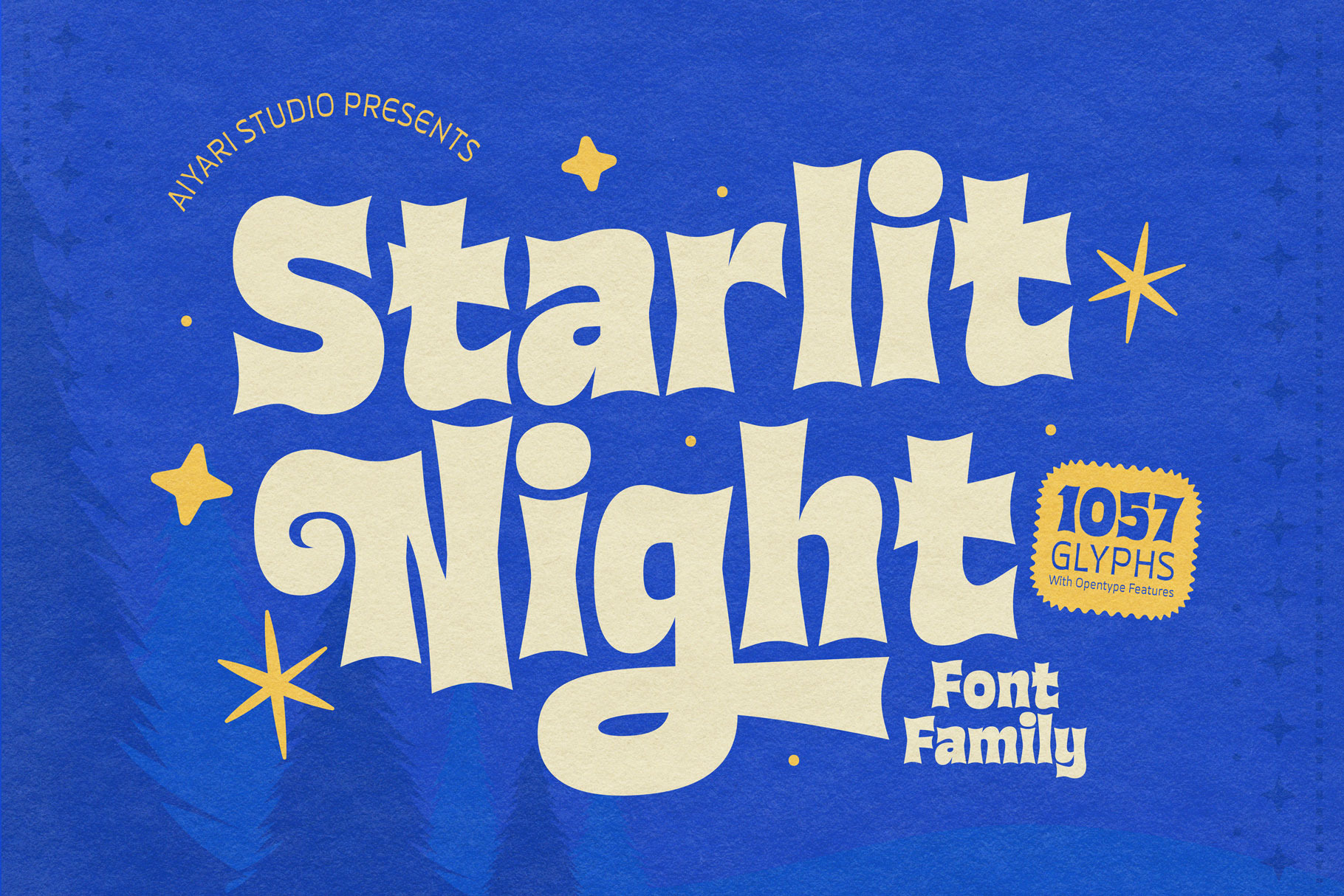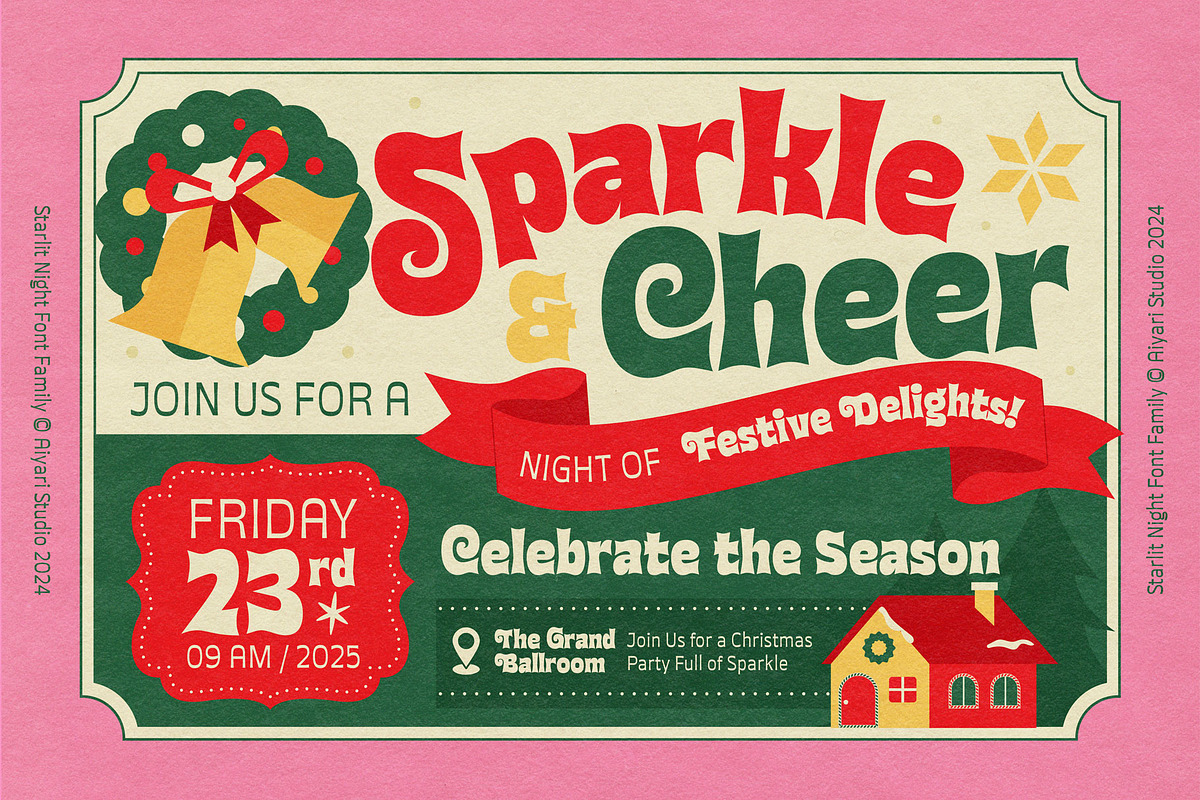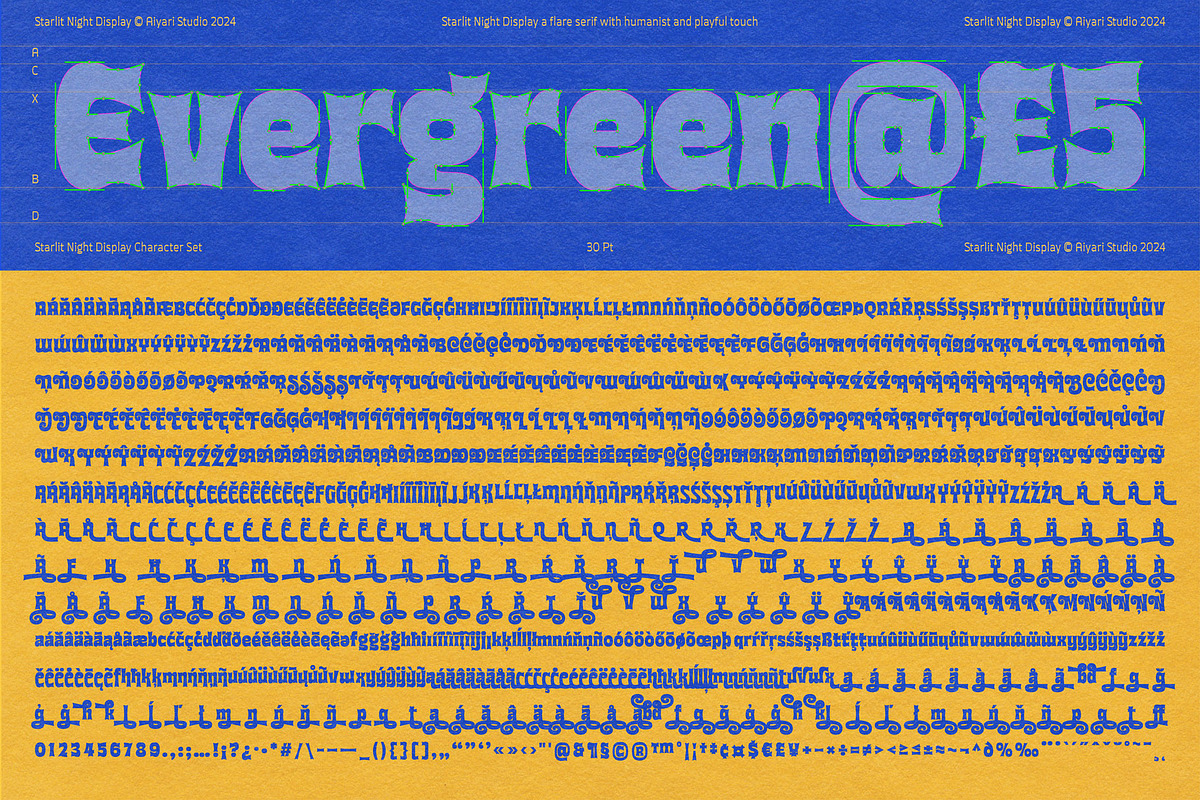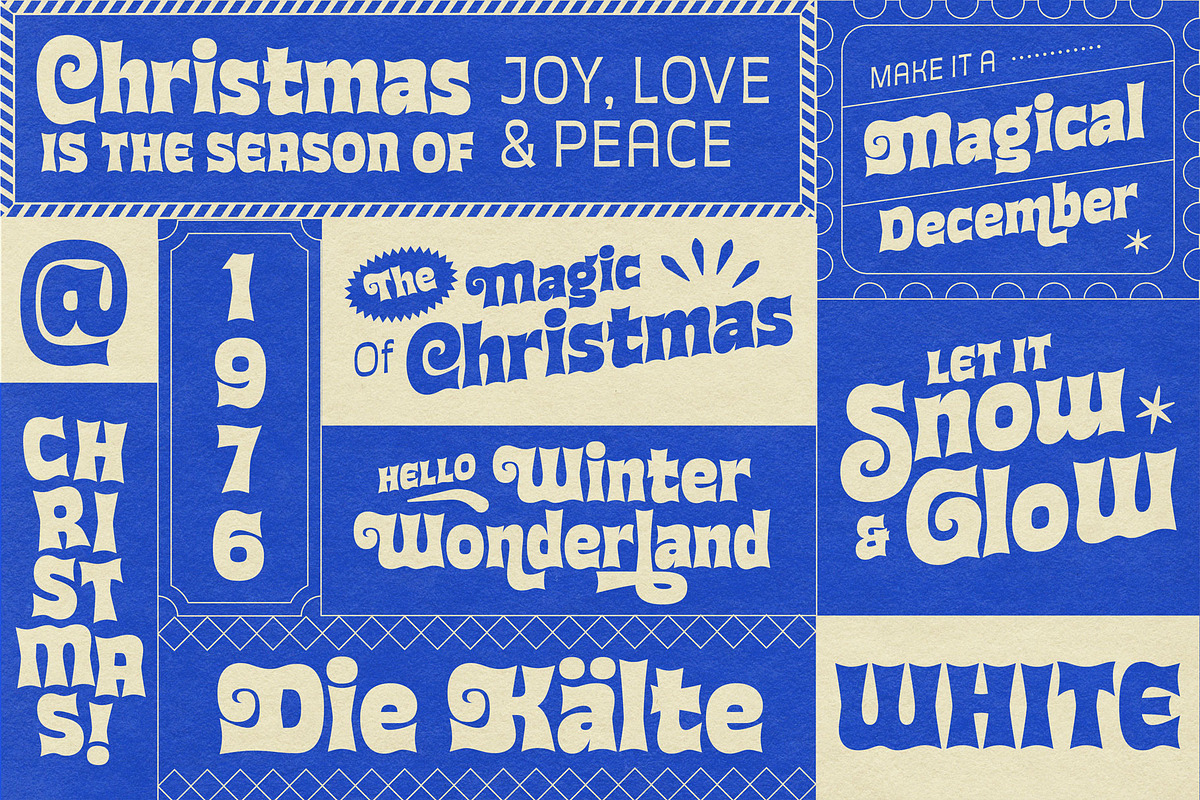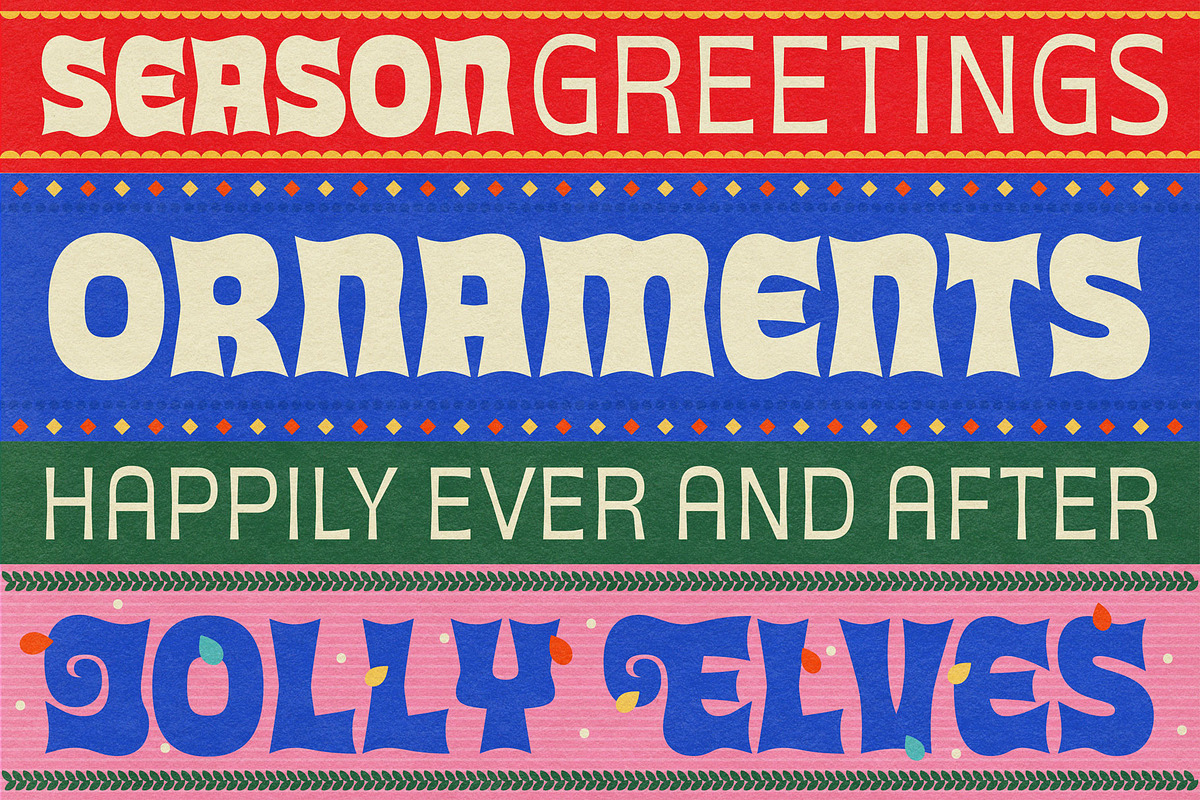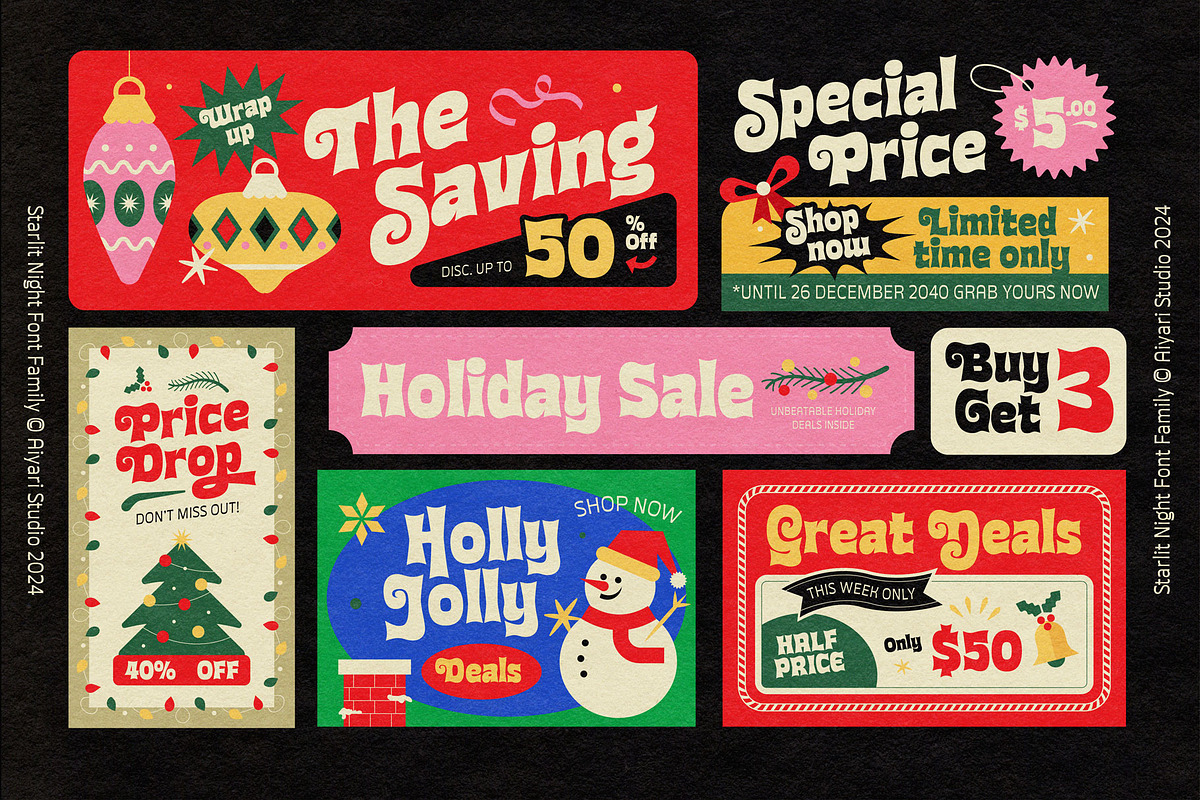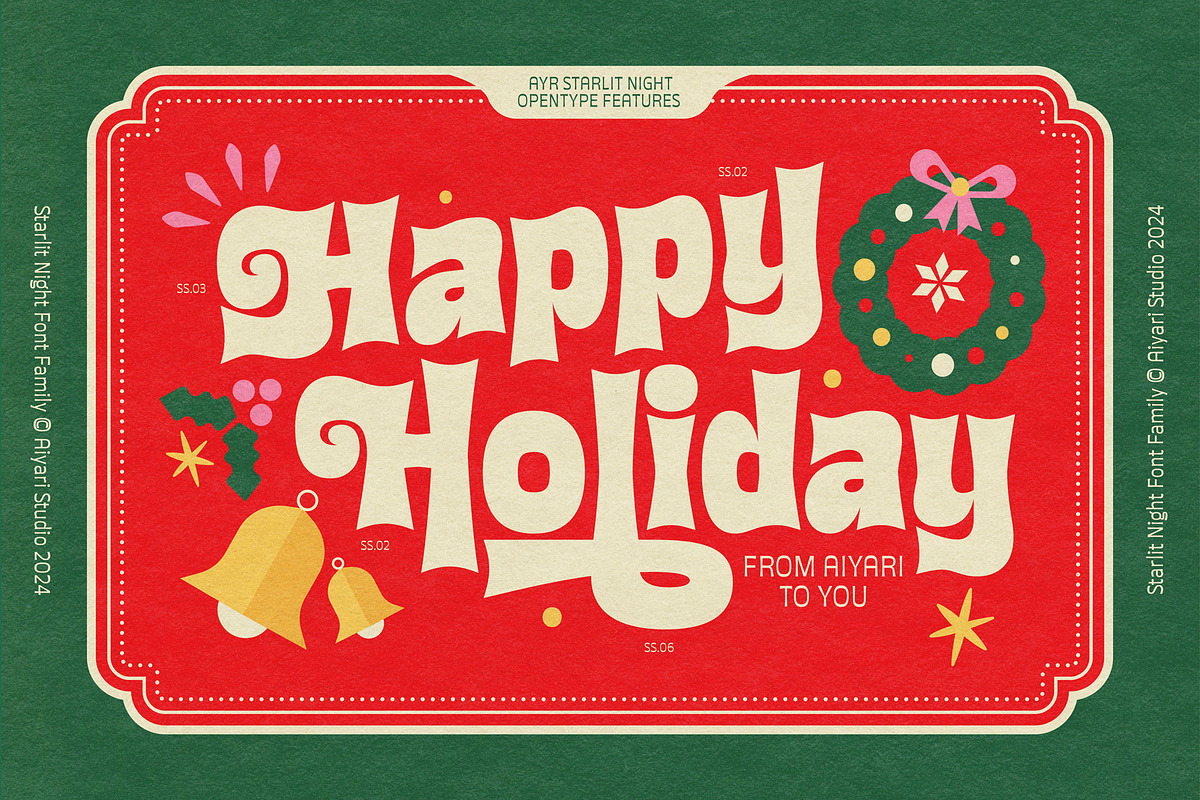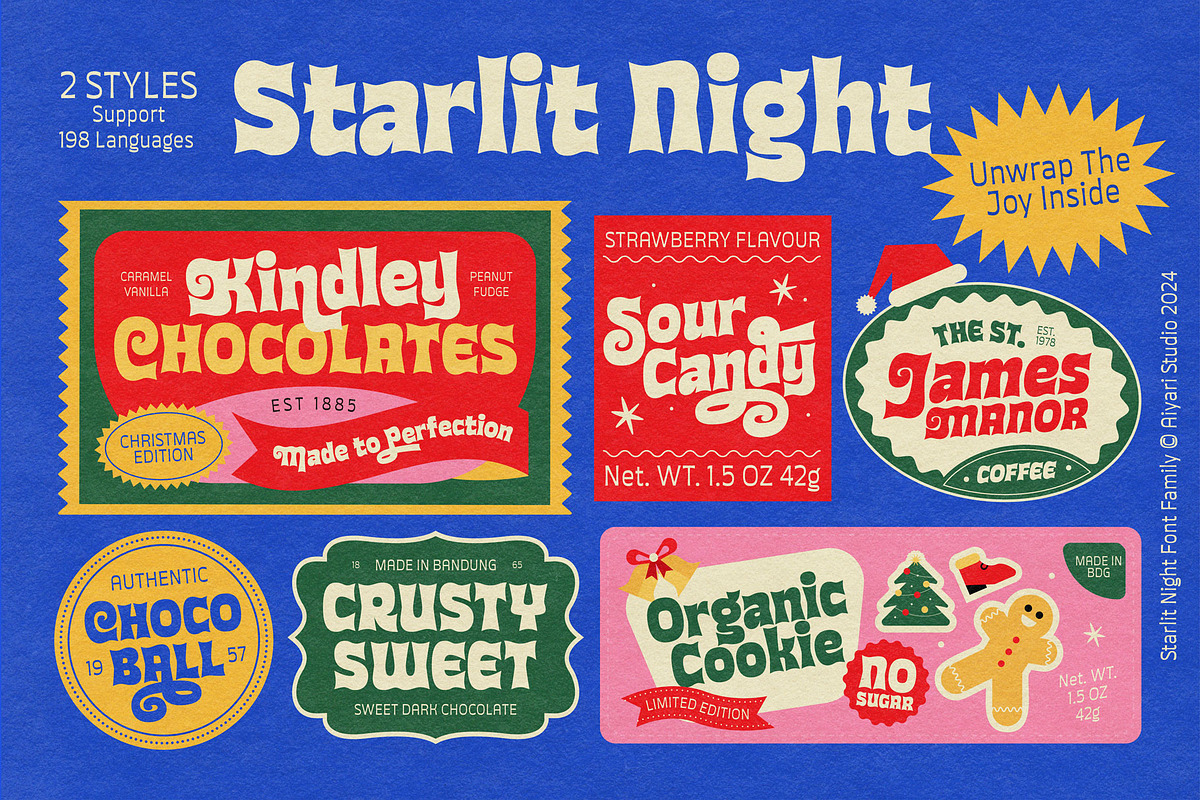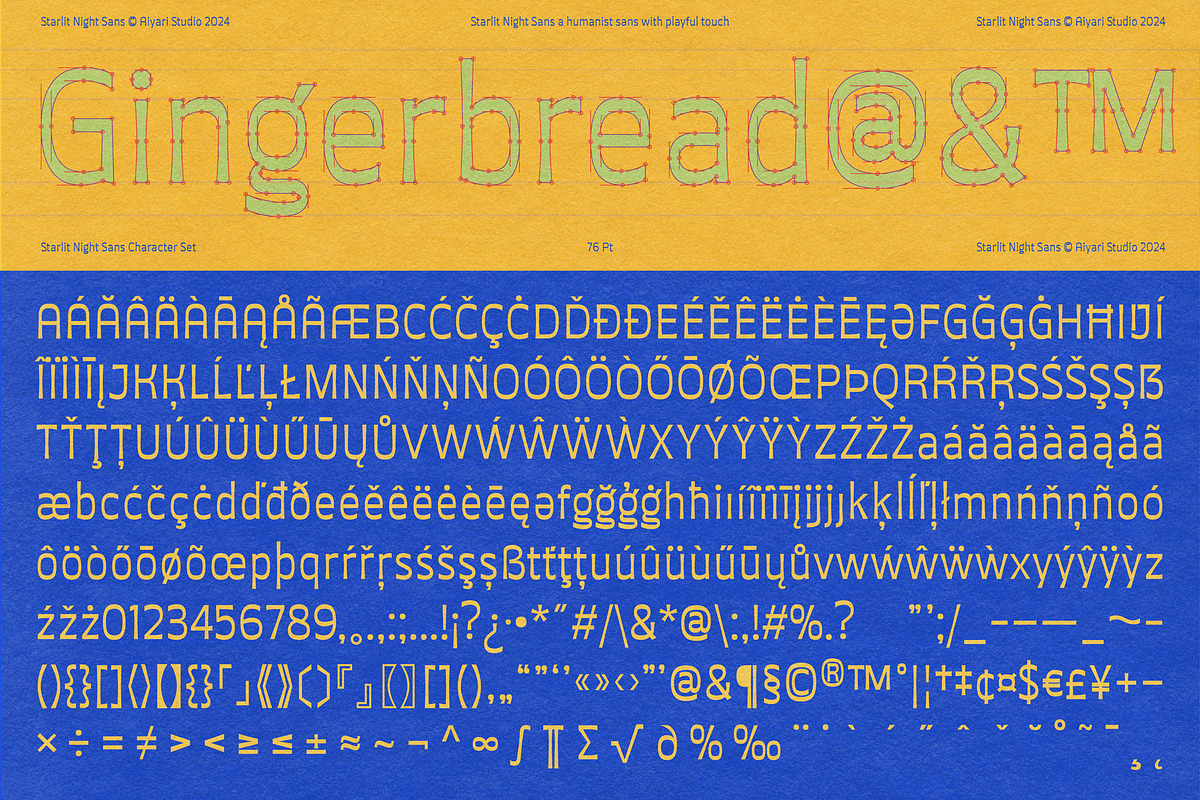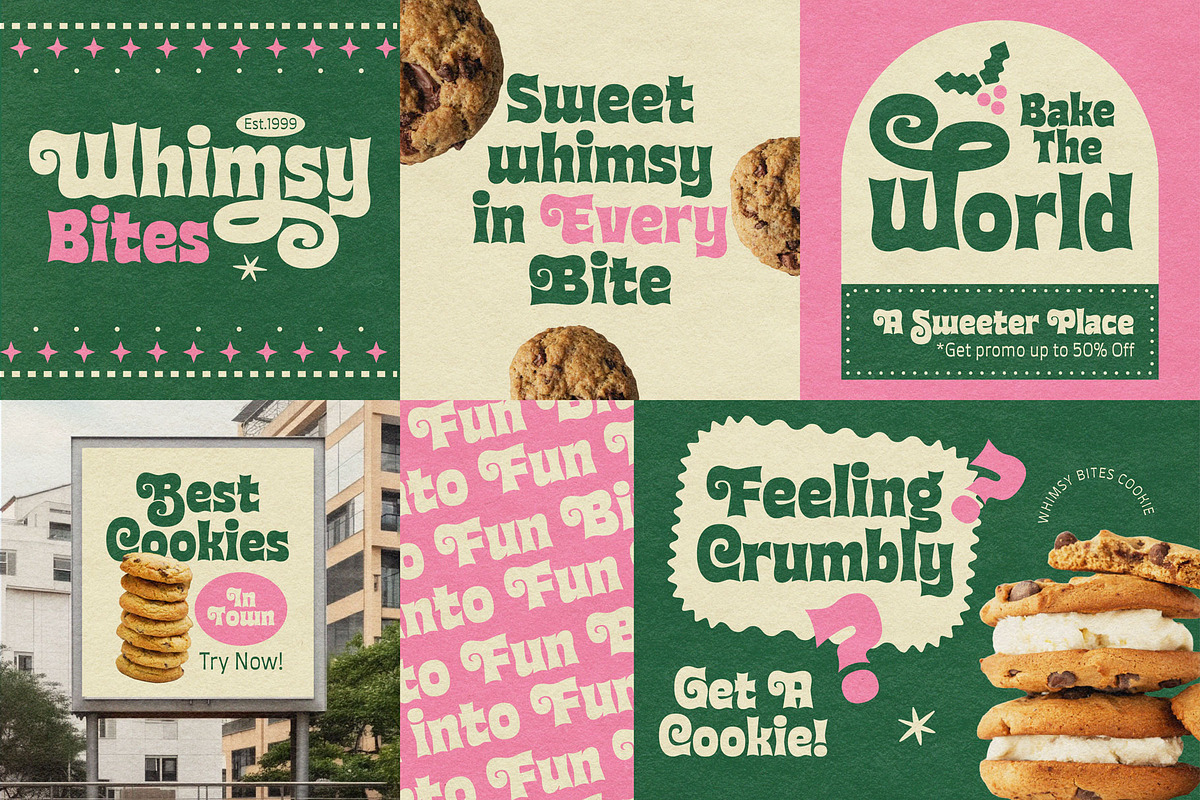
Starlit Night Font Family
inspire by 60s-70s lettering, Starlit Night typeface seamlessly blends nostalgia with a modern aesthetic. This typeface features distinctive flare serifs, enhanced with humanist letterforms for a warm, approachable feel. The retro aesthetic of Starlit Night can be applied to a variety of contemporary settings, while remaining fresh and versatile.
Starlit Night best uses for headings, invitation, Logo type, quotes, apparel design, flyer, poster, greeting cards, product packaging, book cover, printed quotes, cover album, movie, etc